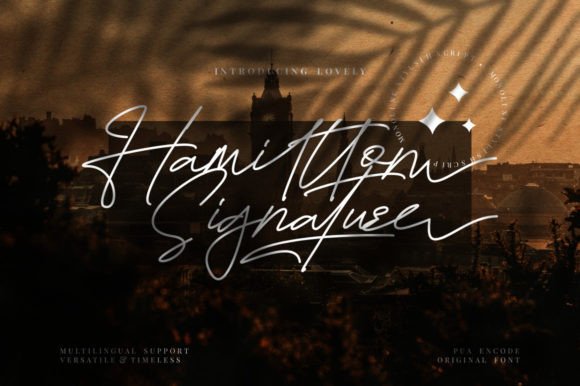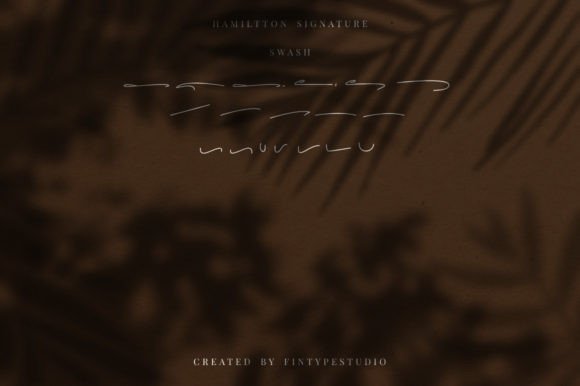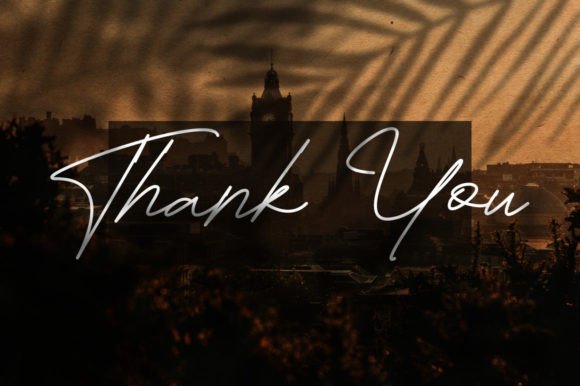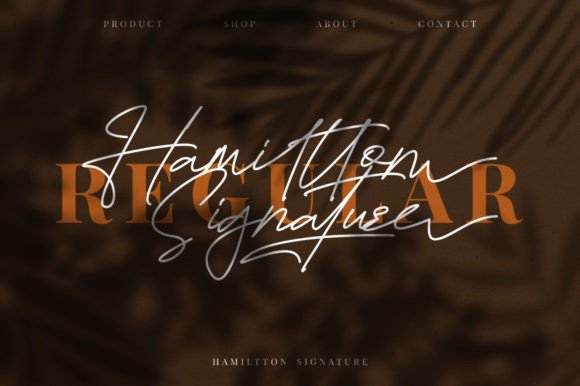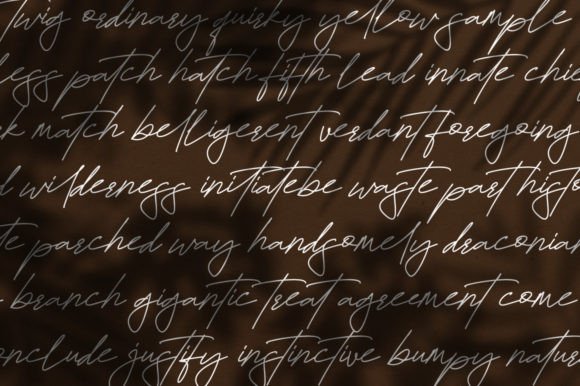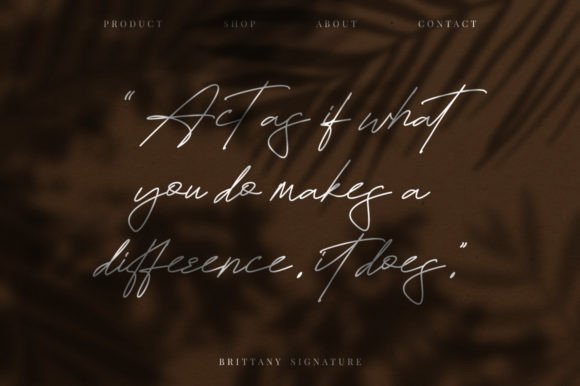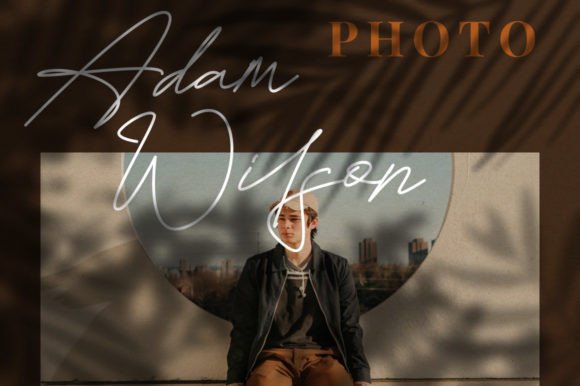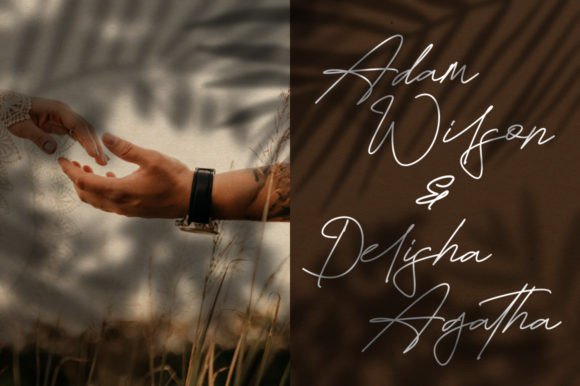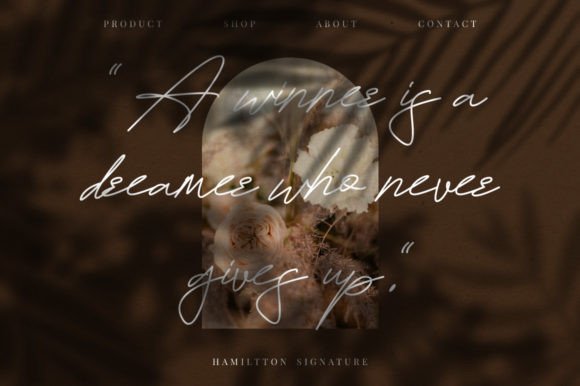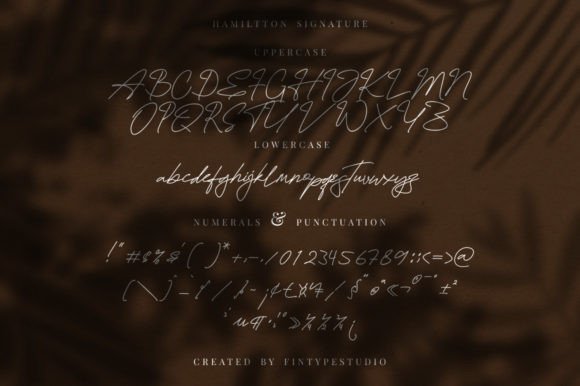
Hamiltton Signature Font
About Hamiltton Signature Font
The Hamiltton Signature Font Download is a graceful handwritten script designed to bring elegance and charm to your projects. Its light strokes and refined curves give it a unique feel and a stunning impact, making it an excellent choice for designers who want to combine simplicity with luxury.
This typeface is also PUA encoded, which means you can easily access all of its beautiful ligatures, alternates, and glyphs without hassle, allowing you to customize your designs with ease.
Features of Hamiltton Signature Font
When you choose the Hamiltton Signature Font Download, you’ll enjoy:
• A light, elegant handwritten script with smooth strokes
• Unique character forms that stand out in any design
• Excellent readability in both small and large text sizes
• Full access to glyphs and ligatures through PUA encoding
• A modern yet timeless handwritten style
Best Uses for Hamiltton Signature Font
The Hamiltton Signature Font Download is versatile and fits perfectly in many creative applications, such as:
• Wedding invitations – Add romance and elegance to your special day
• Logos and branding – Perfect for luxury brands and personal signatures
• Greeting cards – Stylish designs for birthdays, anniversaries, and more
• Social media graphics – Elegant posts that stand out in feeds
• Luxury packaging – Ideal for cosmetics, jewelry, and fashion products
• DIY crafts – Personal creations that need a polished, handwritten touch
Why Choose Hamiltton Signature Font
Unlike standard handwritten fonts, the Hamiltton Signature Font Download offers both sophistication and versatility. Its light weight makes it delicate and refined, while its unique style ensures your designs leave a lasting impression.
Designers love this font for its modern yet timeless charm, making it a reliable choice for both digital and print projects.
The Hamiltton Signature Font Download is a light handwritten script with a luxurious feel, perfect for weddings, branding, packaging, and more. With its elegant style and PUA-encoded features, this font brings creativity and refinement to every design.